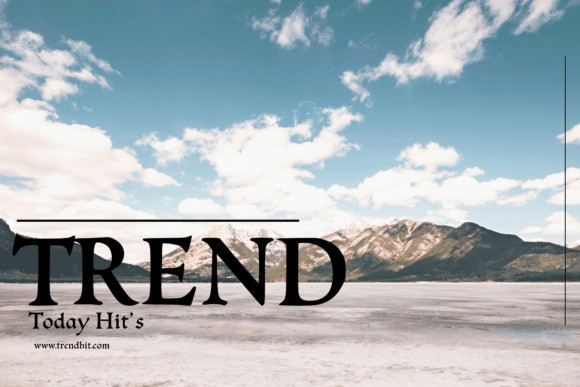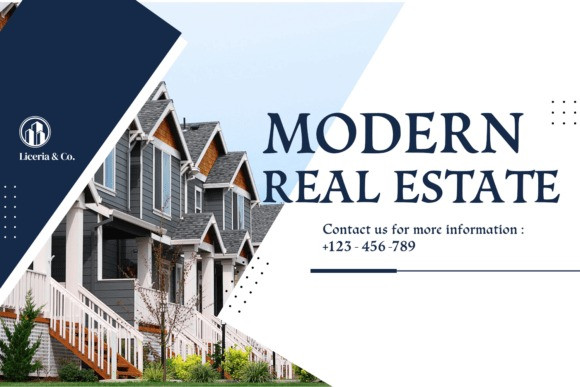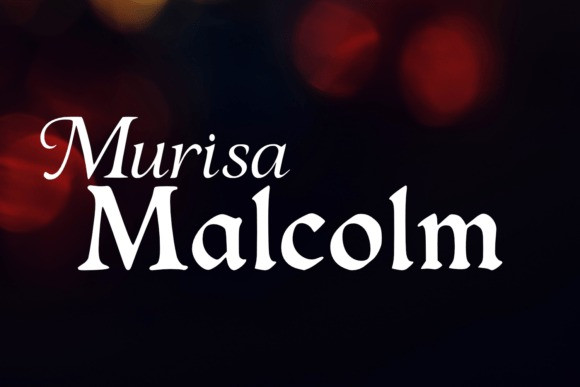
Murisa Malcolm Font
Murisa Malcolm Font is a lovely and timeless handwritten font. It is the best choice for creating eye catching logos, branding and quotes. Every letter has a unique and beautiful touch, which will make your design come alive!